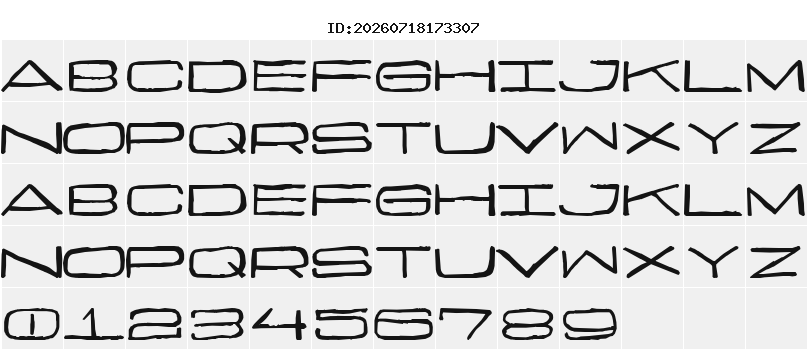
Curmudgeonly Preview
• Font Name: Curmudgeonly
• Full Font Name: Curmudgeonly
• PostScript Name: Curmudgeonly
About Curmudgeonly.ttf
Curmudgeonly.ttf is a modern, elegant sans-serif font designed for ultimate readability and visual harmony. Perfect for branding, headlines, web design, and print materials.